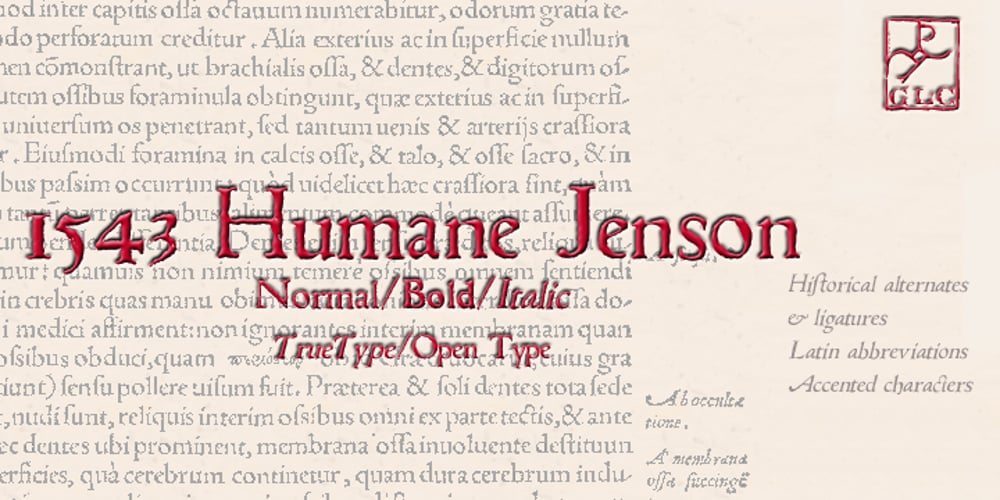
1543 Humane Jenson Font Family was designed by published by GLC. 1543 Humane Jenson contains 3 styles and family package options. In 1543 the well-known “De humani corporis fabrica” treatise on anatomy by André Vesale, was printed by Johann Oporinus in Basel (Switzerland). Various typefaces were used for this work, mostly in Latin but including Greek characters. Its Jenson-type font was the one which inspired this font. It is a very elegant one, including the “long s”, a few abbreviation forms and ligatures. As it was a Latin text, there were no accented characters and a few capitals were absent. I had to reconstruct them. A render sheet, in the font file, makes all characters easy to identify on the keyboard. This font may be used as a “modern” one for web-site titles, posters and flier designs, publishing ancient texts… and anything else you want! One of the most elegant types ever cut, it stands up very well to enlargement, remaining as readable as in its original small size.